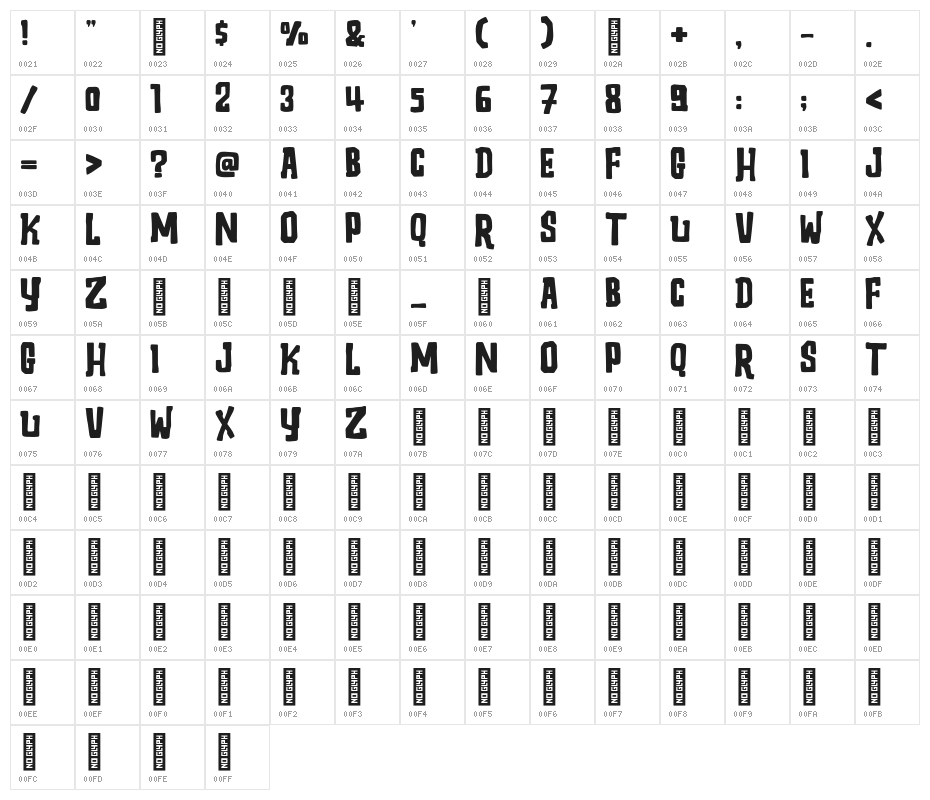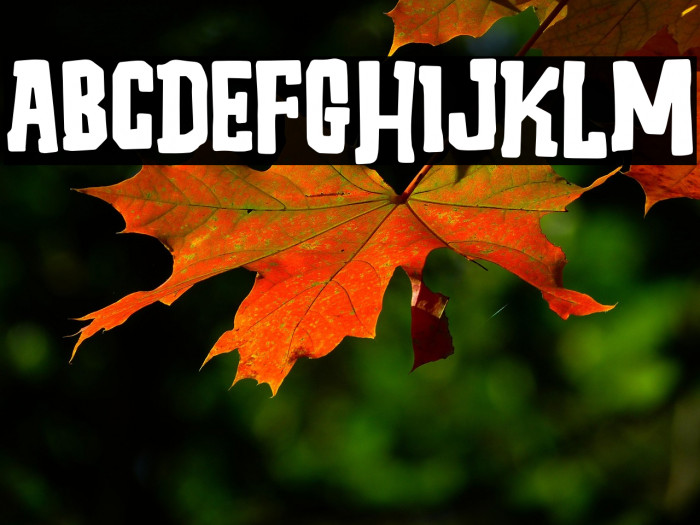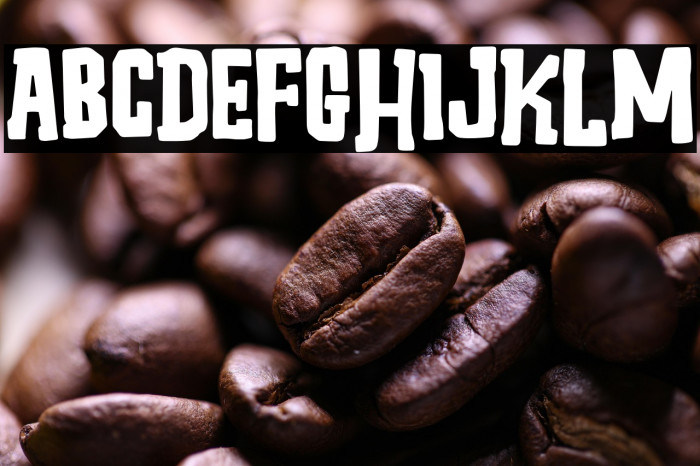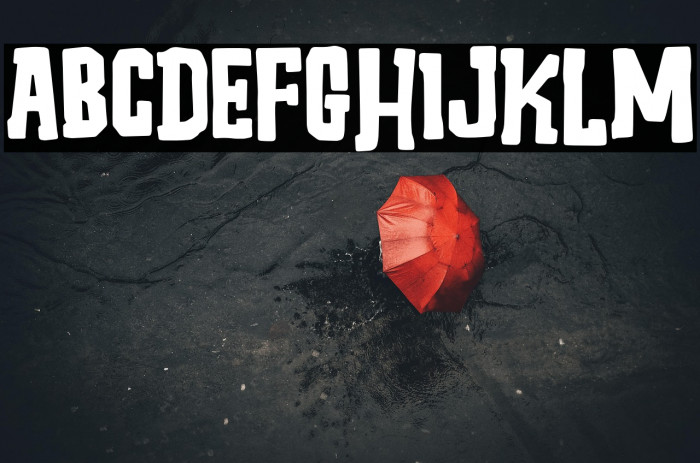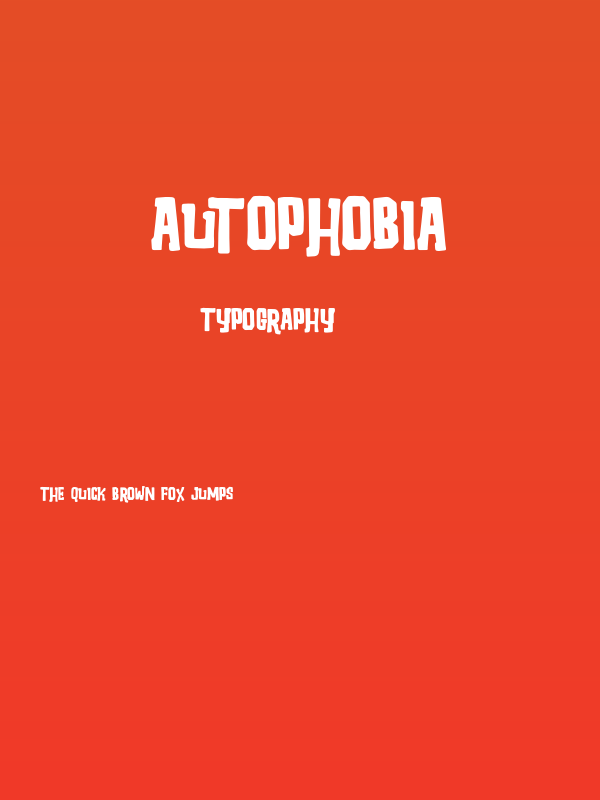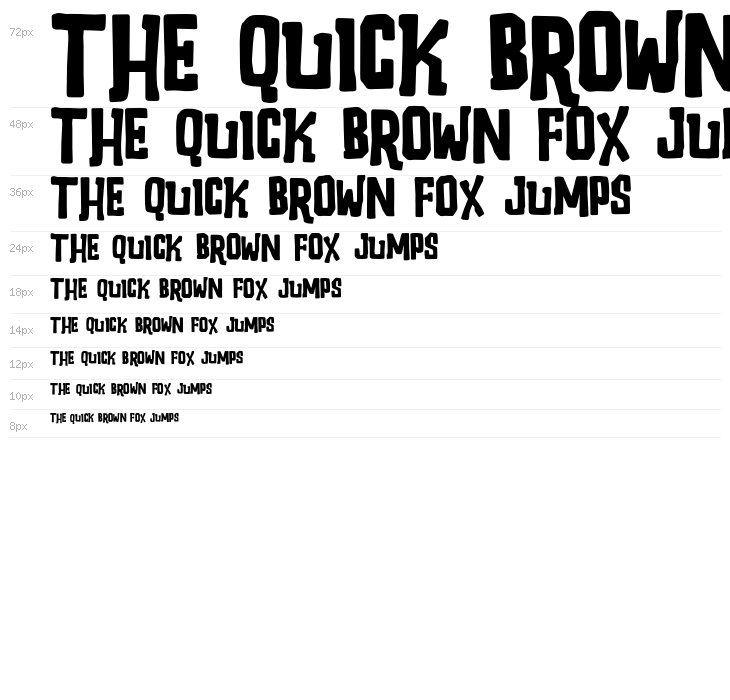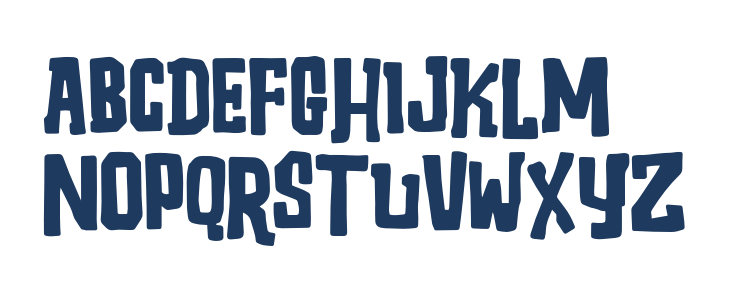
Autophobia Font
Autophobia Description
This font features a bold and rugged design with a hand-drawn aesthetic, characterized by its irregular and uneven strokes. The uppercase and lowercase letters maintain a consistent width, creating a cohesive look across the alphabet. The numbers and special characters follow the same stylistic approach, adding to the font's unique personality. The overall appearance is somewhat playful yet strong, making it suitable for projects that require a distinctive and eye-catching typeface. The font's boldness and irregularity give it a dynamic and energetic feel, ideal for creative and unconventional designs.
| Proposed Projects | Ideal for posters, album covers, branding for edgy or alternative products, and creative event invitations. |